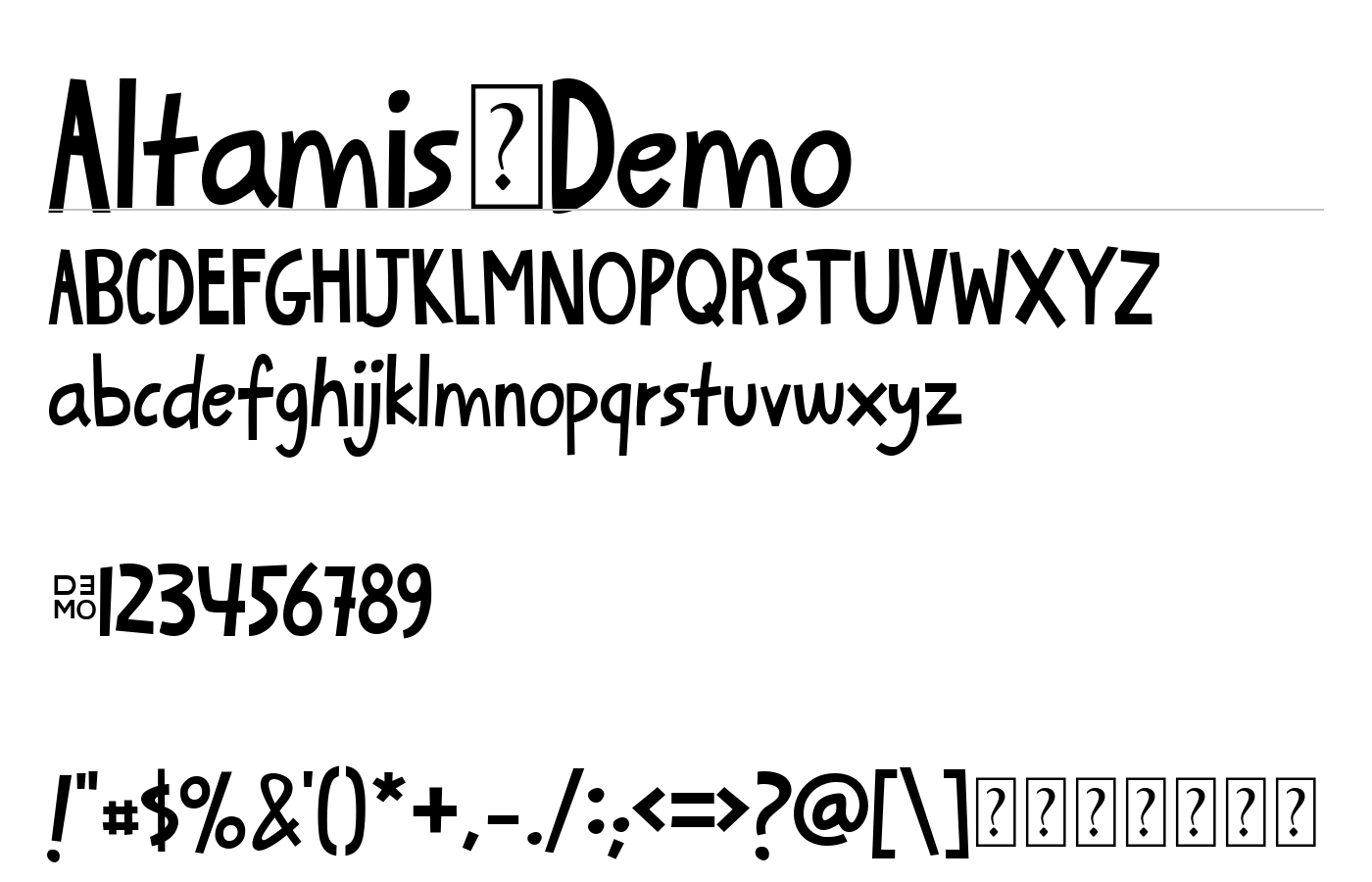
Altamis_Demo is a quirky, playful sans serif font with irregular, hand-drawn letterforms that give it a casual and friendly character. Its tall, narrow shapes and uneven strokes make it stand out with a fun, lively personality perfect for informal branding, children's materials, or creative projects that want a unique and approachable vibe. This font works best in headlines and logos where its distinctive style can shine and add charm.
Altamis_Demo Font
About Altamis_Demo Font
| Font family | Altamis_Demo Font |
| Designer | Wasito Utomo |